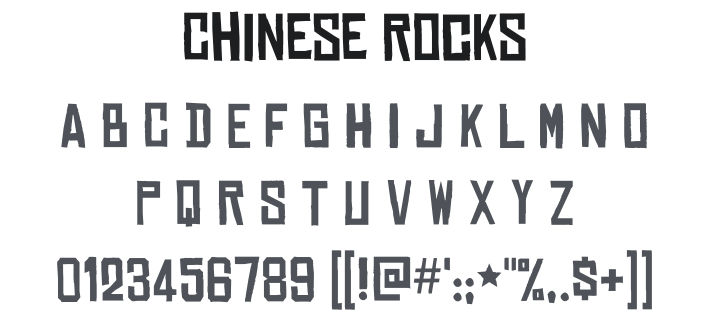
Chinese Rocks Font
About Chinese Rocks
Chinese Rocks revives the rugged clarity of hand-cut stencils once used on shipping crates and export packaging. Its condensed, utilitarian forms echo quick lettering carved into wood and cardboard, marked by subtle human irregularities that lend warmth and authenticity. Designed for efficiency, it reads cleanly at any scale while retaining its industrial edge. Multiple weights and widths expand its range…from bold display use to tighter layouts, making it ideal for posters, packaging, games, and historical or gritty themes. Functional yet characterful, Chinese Rocks blends craftsmanship with endurance in a typeface built to work hard.